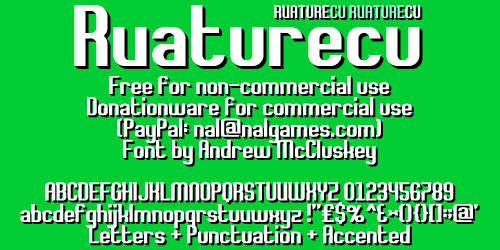
Font name: | Rvaturecu |
A relatively simple sans-serif font made to be clean and easy to read. This font can be used completely free for anything and everything non-commercial. If you are to make money from whatever you use this font for (including from ad-revenue/other indirect sources), please donate any sum of money over PayPal to Andrew McCluskey (nal@nalgames.com). This can also be done directly through DaFont.com, see the link above. If you're using it freely and do wish to donate, I highly appreciate it, but it's not necessary. Email nal@nalgames.com if you have any inquiries about the licensing, donations, or also if you do get use out of the font and feel like showing me where you've used it - again, this is not obligatory, but I always appreciate and enjoy this kind of support! Thank-you for downloading this font if you do, and I hope you find a use for it! |